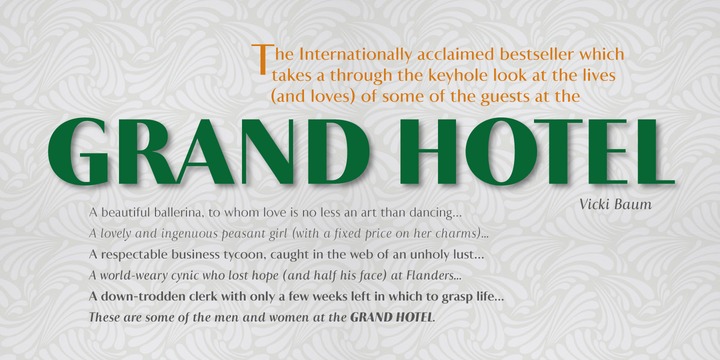
The Astoria Classic Sans Family Font: A Designer’s New Best Friend
I’ll never forget the project that led me to discover the Astoria Classic Sans Family Font. I was working on a branding project for a trendy new cafe, and I was struggling to find the perfect font to capture their modern yet elegant vibe. The client was specific about wanting a sans-serif font with a classic feel, but not too traditional. That’s when I stumbled upon Astoria Classic Sans, and it was love at first sight! 💕
- ✨ The perfect blend of modern and classic: Astoria Classic Sans has a unique charm that sets it apart from other sans-serif fonts.
- ✅ Highly legible: The font’s vertical stress and carefully crafted letterforms make it easy to read, even at small sizes.
- 🎉 Beautiful italics: The old-style italics in Astoria Classic Sans have a sophisticated look that’s perfect for emphasizing text.
- 💼 Versatile: This font works beautifully for both headlines and body text, making it a great addition to any design project.
While Astoria Classic Sans is an amazing font, there are a few things to keep in mind:
- ⚠️ Limited availability: As a specialty font, Astoria Classic Sans might not be as widely available as some other fonts.
- 🤔 Some characters may require manual kerning: Depending on the context, you might need to adjust the kerning to get the perfect spacing.
The Astoria Classic Sans Family Font was designed with the goal of creating a versatile, elegant sans-serif font that could be used for a wide range of design projects. The design team drew inspiration from classic typography and modern design trends to create a font that’s both timeless and fresh.
| Font Name | Astoria Classic Sans Family Font |
| Author | Alan Meeks |
| What is the x-height of Astoria Classic Sans? | The x-height of Astoria Classic Sans is approximately 50% of the cap height, making it highly legible. |
| Is Astoria Classic Sans suitable for body text? | Yes, Astoria Classic Sans is designed to work well for body text, and its clear letterforms make it easy to read. |
| Are there any OpenType features in Astoria Classic Sans? | Yes, Astoria Classic Sans includes OpenType features like ligatures and stylistic alternates to add visual interest to your text. |